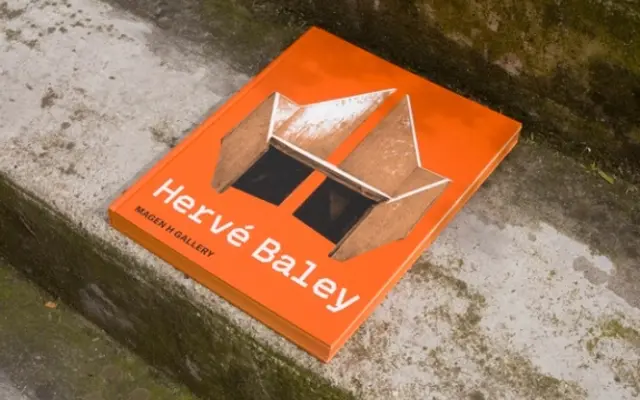
Anto Plot Mono
b•v-h type · André Baldinger & Toan Vu-Huu · 2022
A geometric monospaced family in four weights, spun out of the Anto Plot sans conceived for French cultural institutions in 2017.
Designed by André Baldinger and Toan Vu-Huu, Anto Plot Mono takes the angular, early-grotesque proportions of the broader Anto Plot family and applies them to a fixed-pitch format across Light, Regular, Medium and Bold. The family originated as an institutional identity proposal for Bétonsalon in Paris and draws formal inspiration from Monotype Grotesque Bold Extended. With 801 glyphs per style and extensive OpenType features including multiple figure sets, circled and framed numbers, and several stylistic alternates, it carries enough typographic rigour for demanding editorial and cultural contexts.
A monospaced variant of the angular geometric Anto Plot family, derived from early grotesque proportions and drawn with deliberate geometric rigidity rather than humanist warmth.